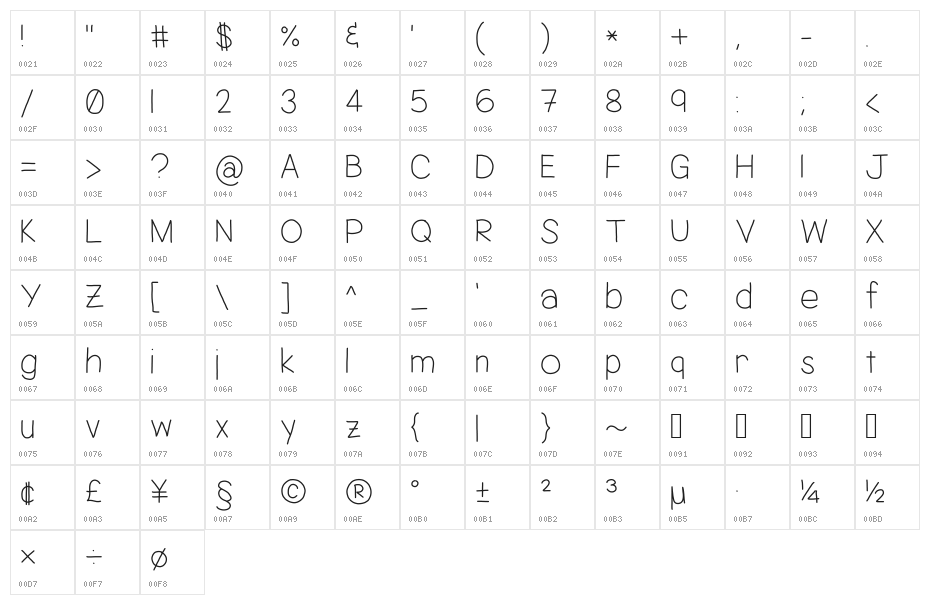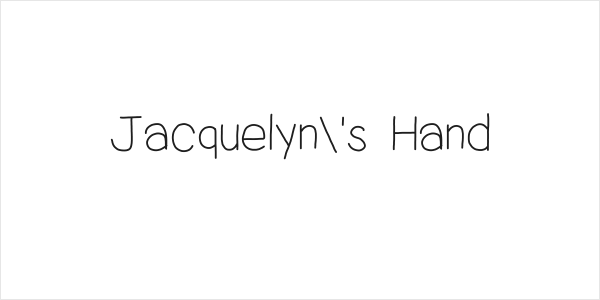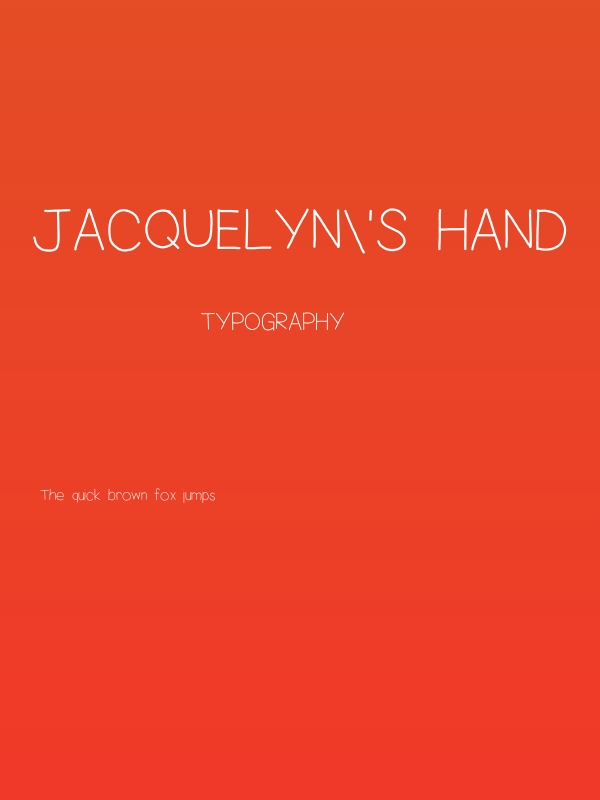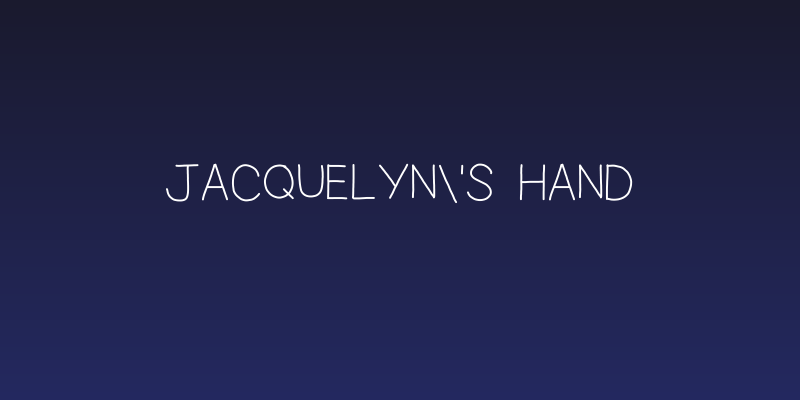
Jacquelyn's Hand Font
| Stile generale | Casual |
| Caso d'uso | Logos, Headlines, Informal text |
| Progetti proposti | Ideal for greeting cards, personal blogs, children's books, and informal invitations. |